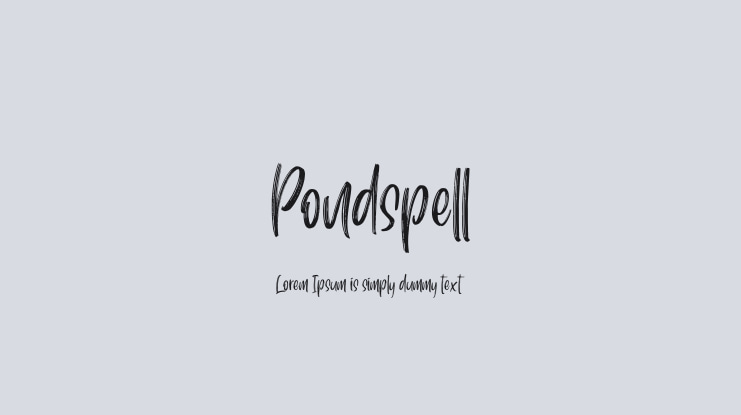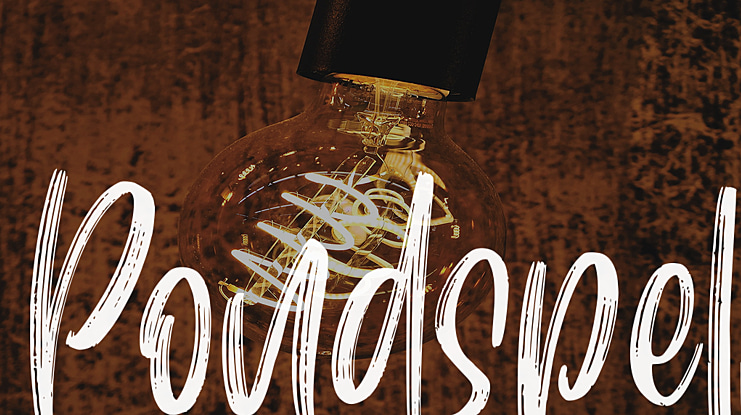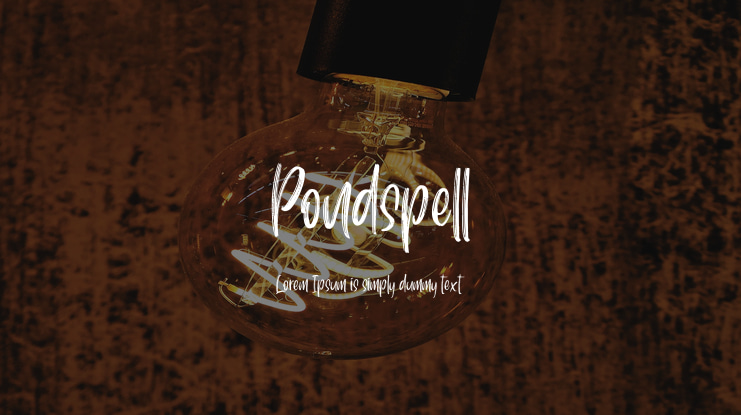
Pondspell Font
Introducing Pondspell Brush Font Pondspellt is a brush font, Made with naturally brush. The texture from the brush font will make your design more beautiful and powerful. This font is suitable for any design like branding, quotes, book title and etc.
Accents (Multilingual Characters)
Ligatures
Numerals and Punctuation (OpenType Standard)
Swash